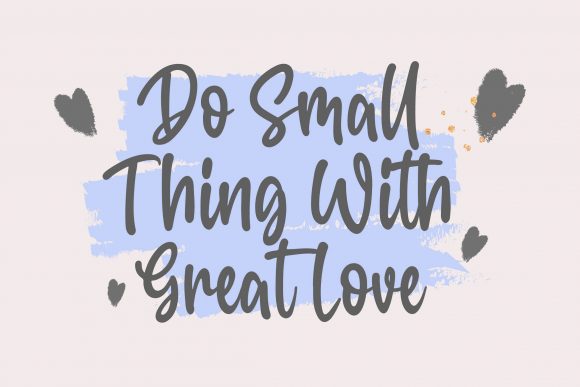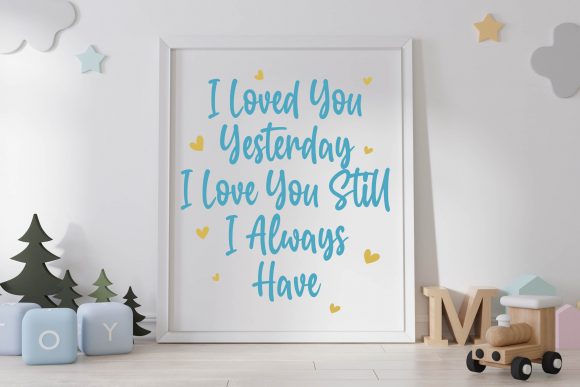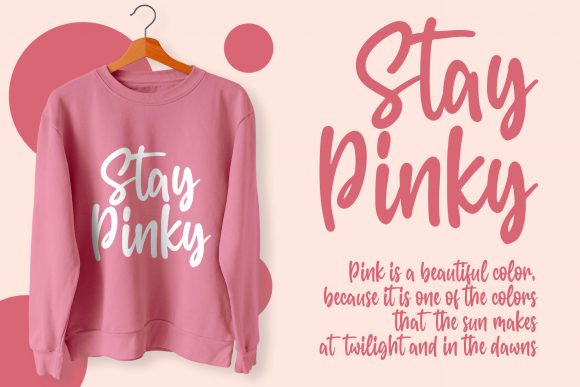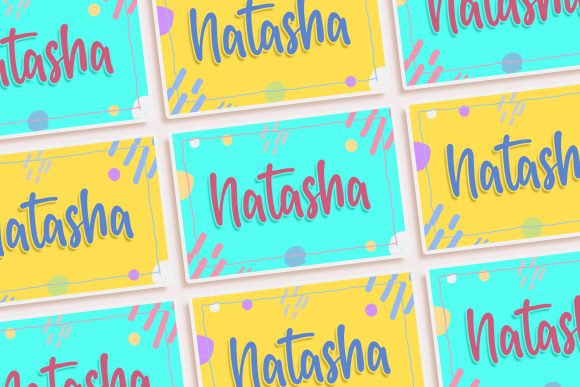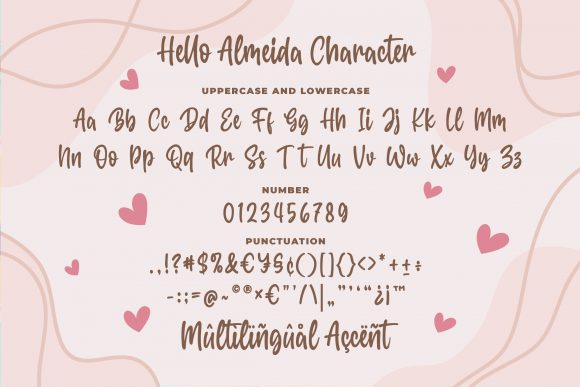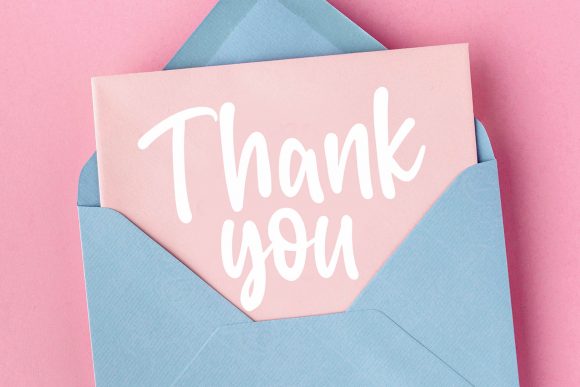
Introduction to Hello Almeida Font
Have you ever found yourself in a creative rut, staring at a blank page or screen, desperately searching for the perfect font to bring your idea to life? It’s a moment we’ve all been there – the blank slate, the blank mind, and the overwhelming options. But what if I told you there’s a font that could change all that? Enter the Hello Almeida Font, a beautiful, relaxed, and dainty paint-brushed handwritten font that’s about to become your new best friend.
This stunning design resource is more than just a pretty face – it’s a game-changer for any creative project. With its transparent background and high-quality design, it’s the perfect addition to your font library, elevating any creation to new heights.
Key Features of Hello Almeida Font
- Features a unique, modern design with a transparent background for seamless integration
- Perfect for use in digital and print projects, including logos, branding materials, and more
- Supports a wide range of languages and characters, making it a versatile design resource
Honest Review: Hello Almeida Font
I recently had the chance to experiment with the Hello Almeida Font, and I must say, it’s a great addition to any design resource. The font has a unique and elegant feel to it, making it perfect for creative projects that require a touch of sophistication.
One of the standout features of the Hello Almeida Font is its versatility. It comes in a range of weights and styles, allowing designers to choose the perfect fit for their project. Additionally, the font has a transparent background, making it easy to overlay on images or other design elements.
- Unique and elegant design
- Range of weights and styles
- May not be suitable for modern or edgy designs
- Lack of consistency in certain font weights
Overall, the Hello Almeida Font is a high-quality design resource that can elevate any creative project. While it may have some limitations, its unique design and versatility make it a great choice for designers looking for a high-quality font.
Hello Almeida Font is a high-quality design resource that offers a unique and creative touch to your projects. With its transparent background, it’s perfect for adding a stylish element to your designs without any distractions.
Getting the Most Out of Hello Almeida Font
To get the most out of Hello Almeida Font, use it in conjunction with other design elements to create a cohesive and visually appealing design. Experiment with different font sizes, colors, and arrangements to find the perfect balance for your project.
Hello Almeida Font is ideal for creative projects such as logo design, branding, and marketing materials. It’s also perfect for personal projects like blog titles, social media graphics, and more.